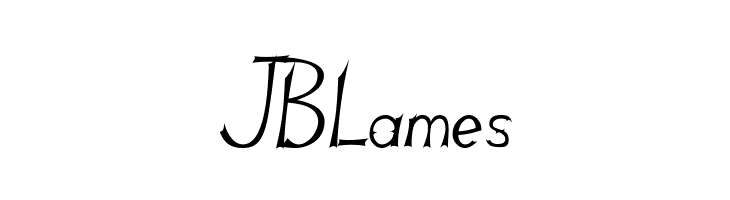
Chaque police phare se distingue par équilibre, lisibilité et polyvalence. Vous trouverez des sans‑serifs modernes, des scripts élégantes, des serifs vintage et des displays minimalistes.
A modern, clean sans-serif font with consistent stroke width and high legibility.
A modern, clean sans-serif font with balanced spacing and uniform strokes.
A playful, hand-drawn font with dynamic strokes and whimsical charm.
A bold, geometric font with angular, blocky letterforms.
A thin, modern sans-serif font for Hebrew script with clean lines and balanced spacing.
A bold, expressive brush script font with dynamic strokes and a handwritten feel.
A modern, geometric font with elongated, narrow letterforms and clean lines.
A bold, expressive script font with dynamic flow and elegant curves.
A cursive, handwritten font with elegant, flowing strokes and ornate flourishes.
A bold, decorative font with whimsical curves and loops.
A decorative font resembling intertwined branches with a naturalistic style.
A bold, rounded serif font with strong, assertive characters and high contrast.
A bold, expanded, and italicized font with a dynamic and impactful style.
A bold, 3D geometric font with a futuristic style and strong visual impact.
A sleek, modern sans-serif font with a light, italic style.
A dynamic, slanted font with elongated, condensed characters.
A flowing, cursive handwritten font with elegant, connected letters.
An elegant and flowing script font with sophisticated, cursive letterforms.
A bold, brush-style handwritten font with dynamic strokes.
A bold, expressive script font with high contrast and flowing cursive letterforms.
A modern, thin font with clean lines and a balanced design.
A modern, extra bold, semi-condensed sans-serif font with tight spacing.
A decorative font with sleigh motifs, perfect for festive designs.